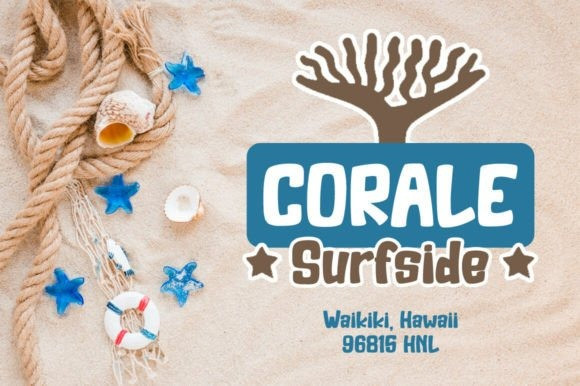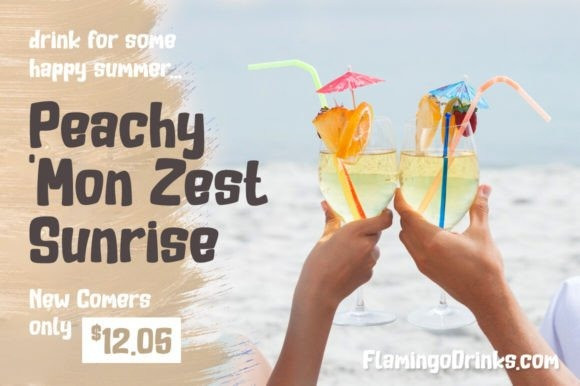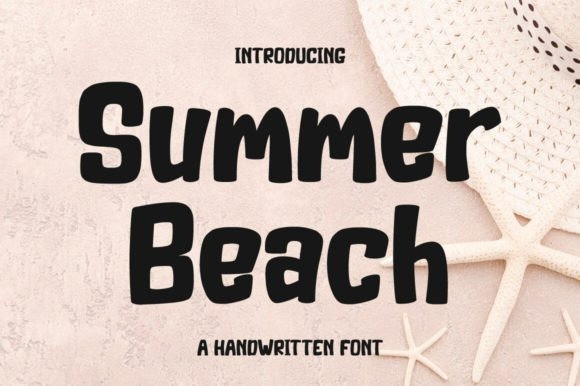
Summer Beach Font
Summer Beach Font is a cute and casual display font. Dainty and joyful, this font will be ideal for writing wedding invitations, cards, or any other design that may need a romantic, personalized touch!